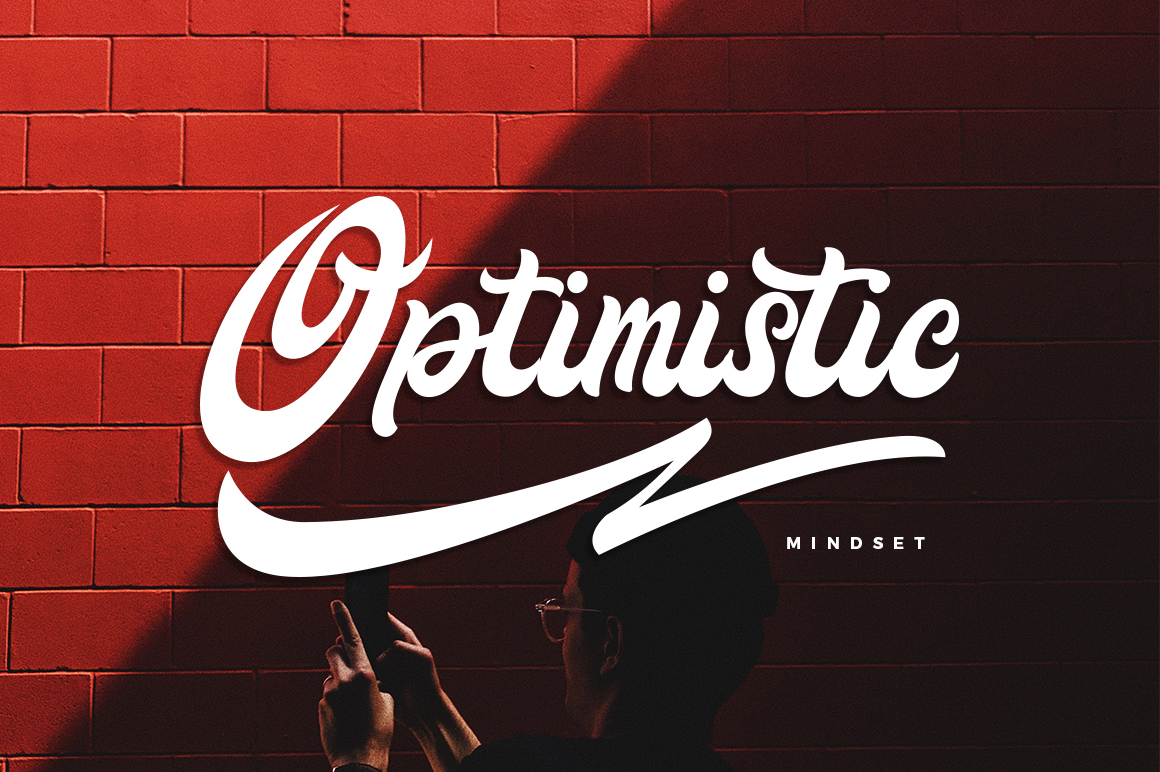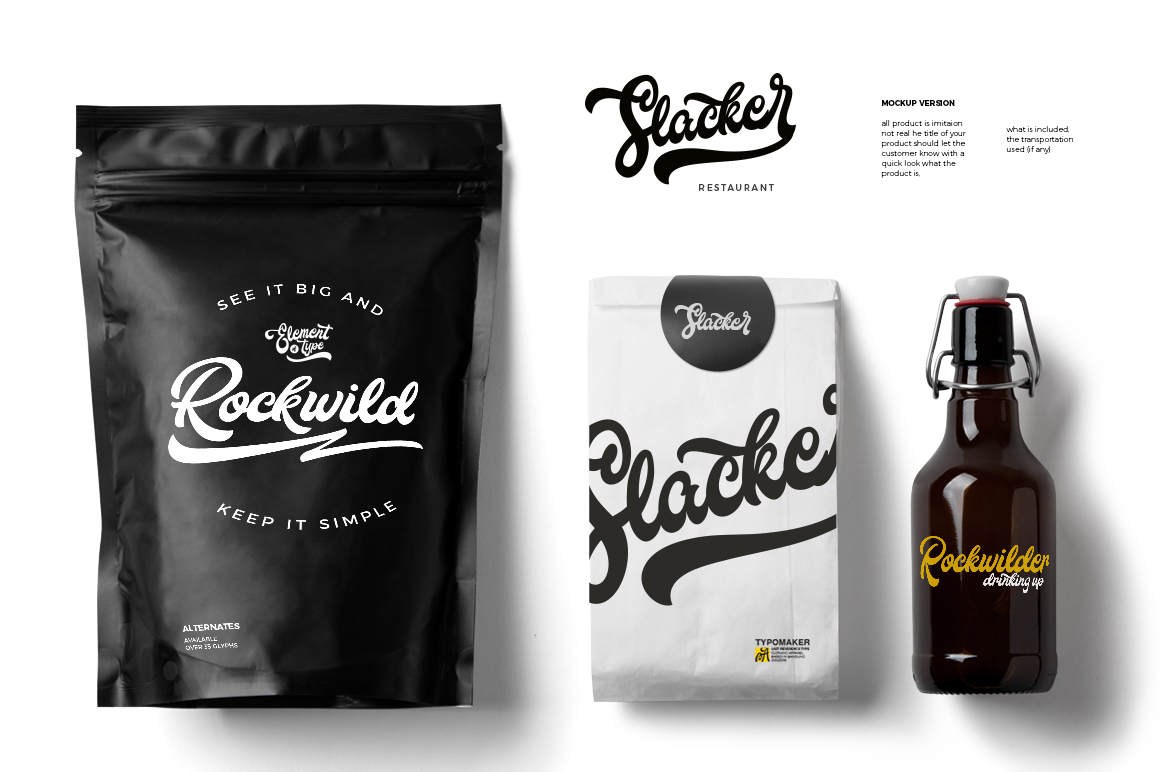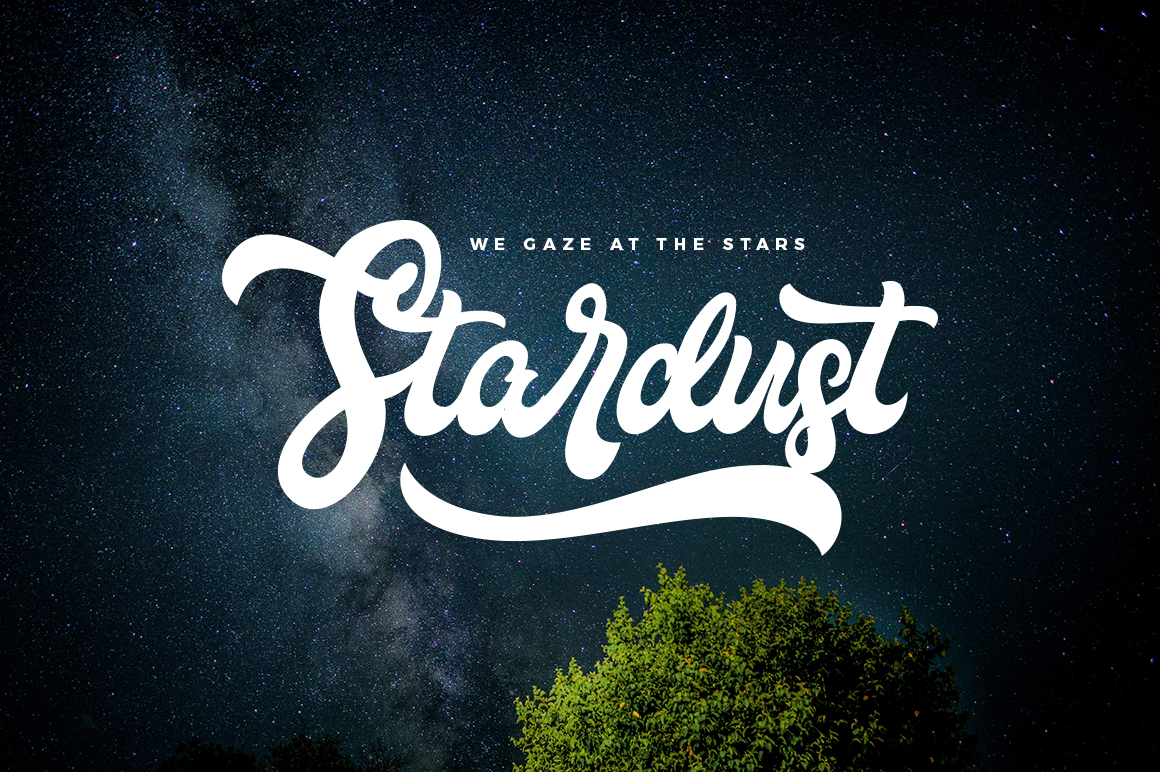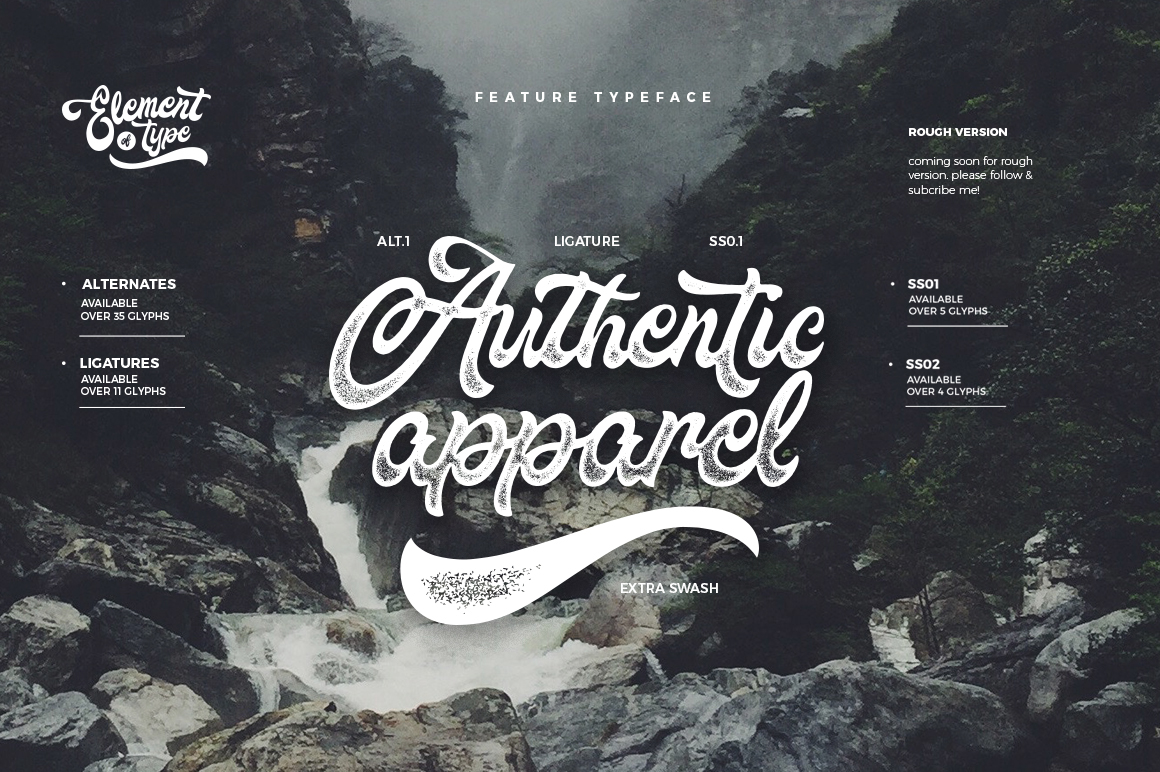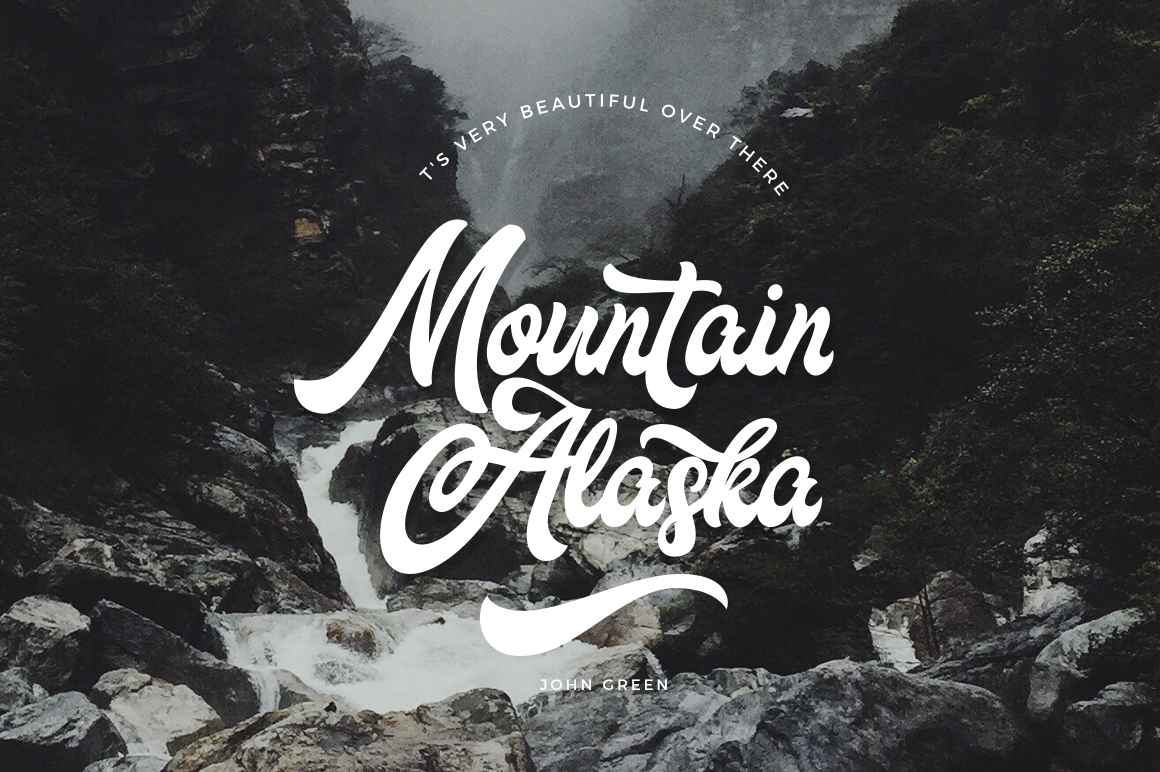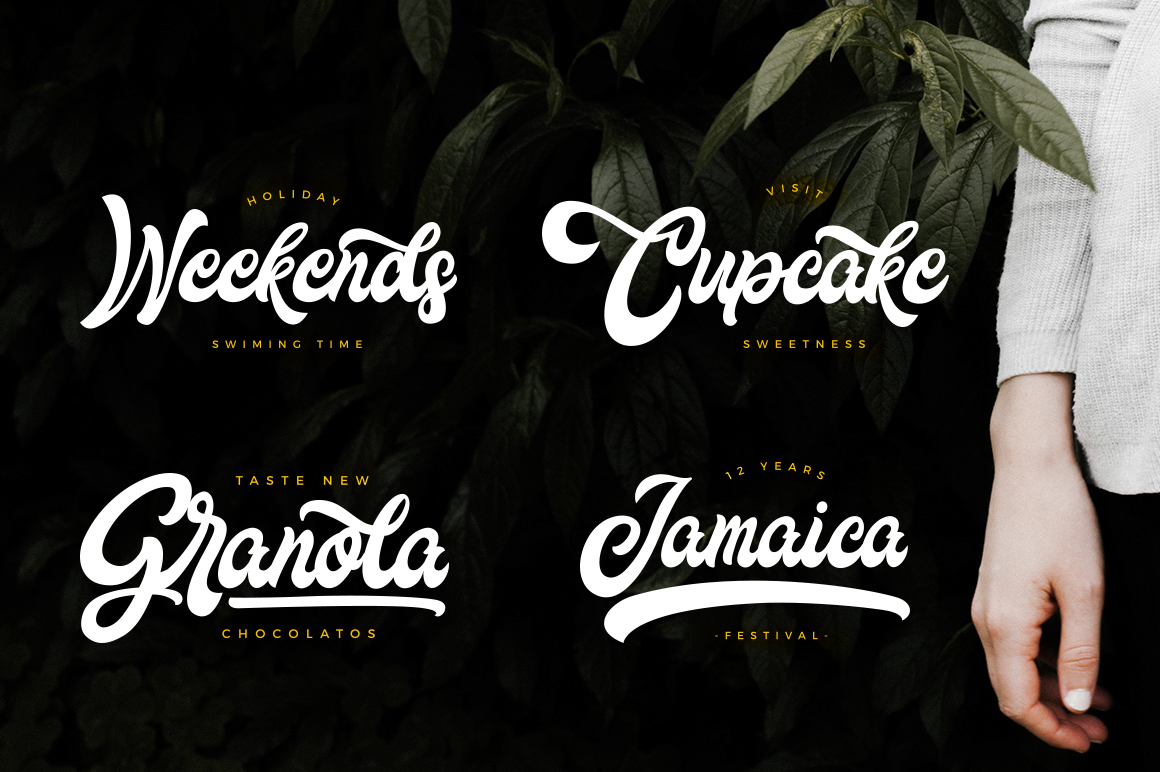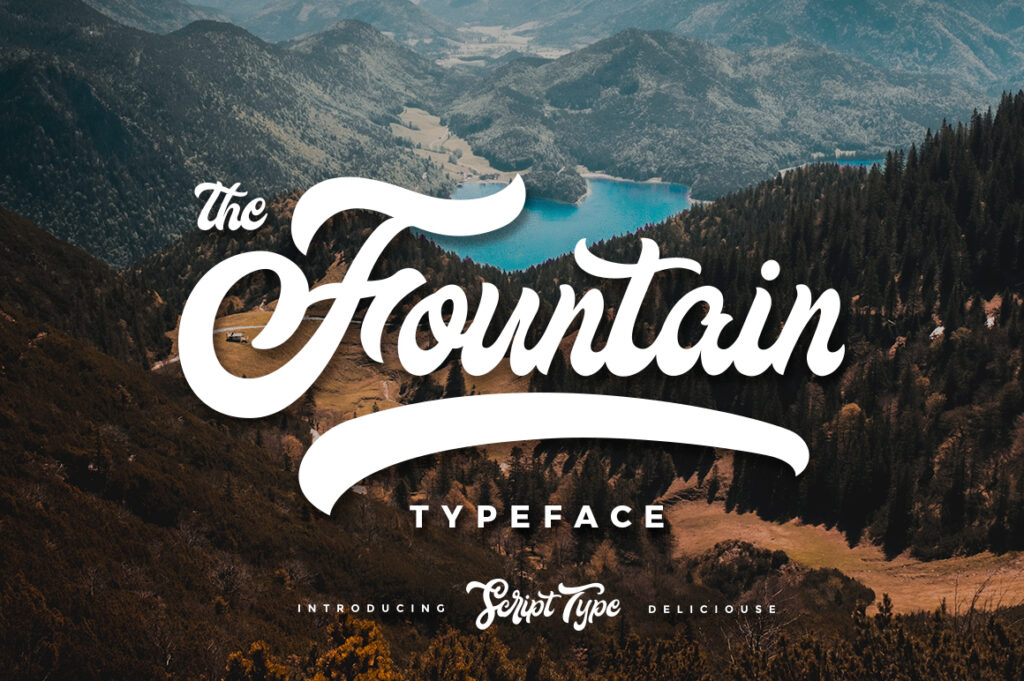
The Fountain is a script font designed by Ramandhani Nugraha from Indonesia. The font is perfect for logos, packaging, headlines, posters, greeting cards, wedding invitations. Download the free demo version below and check the pro version here.